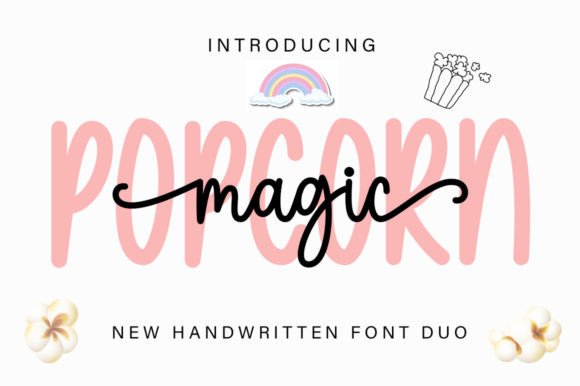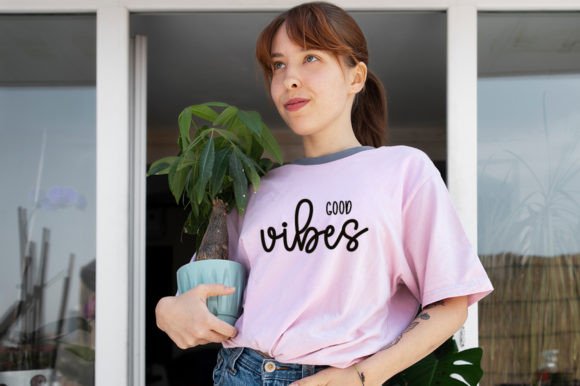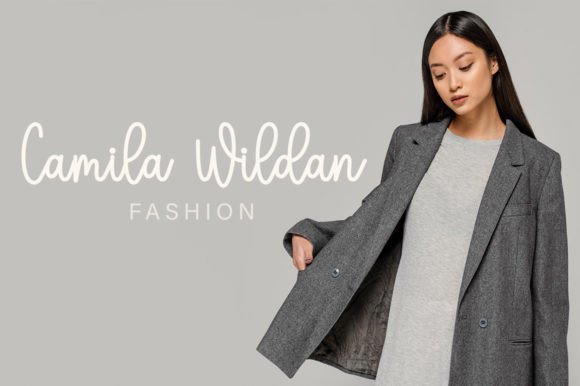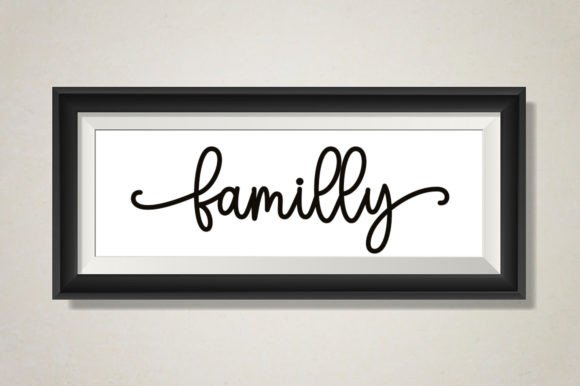
Magic Popcorn Font
About the Magic Popcorn Font
Welcome to the world of Magic Popcorn Font, a typeface that will inspire your next great project. Magic Popcorn is a stylish and delicate duo font (sans serif and script) suitable for a wide spectrum of applications. From greeting cards to headlines, this font will guarantee a romantic touch to each of your creations! Magic Popcorn is PUA encoded which means you can access all of the glyphs and swashes with ease.
Magic Popcorn’s delicate script and sans-serif pairing excel in projects requiring a touch of romantic whimsy. Ideal uses include wedding stationery, branding for artisanal food products, or packaging for beauty items. Headlines and short text blocks benefit most from its stylish forms; however, its script component is unsuitable for large bodies of text or UI applications.
The script’s flowing forms are best complemented by clean, geometric sans-serif fonts like Montserrat or Futura for a balanced contrast. Alternatively, pairing the sans-serif with a classic serif like Garamond or a more modern serif such as Lato provides a sophisticated alternative. Avoid pairing it with other highly decorative or overly playful fonts to maintain visual clarity.
The overall personality of Magic Popcorn is charming and elegant, yet playful, making it suitable for brands that wish to project a lighthearted sophistication.